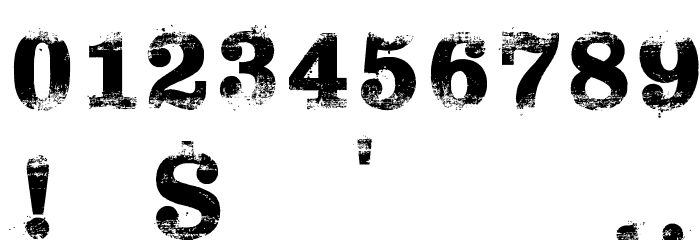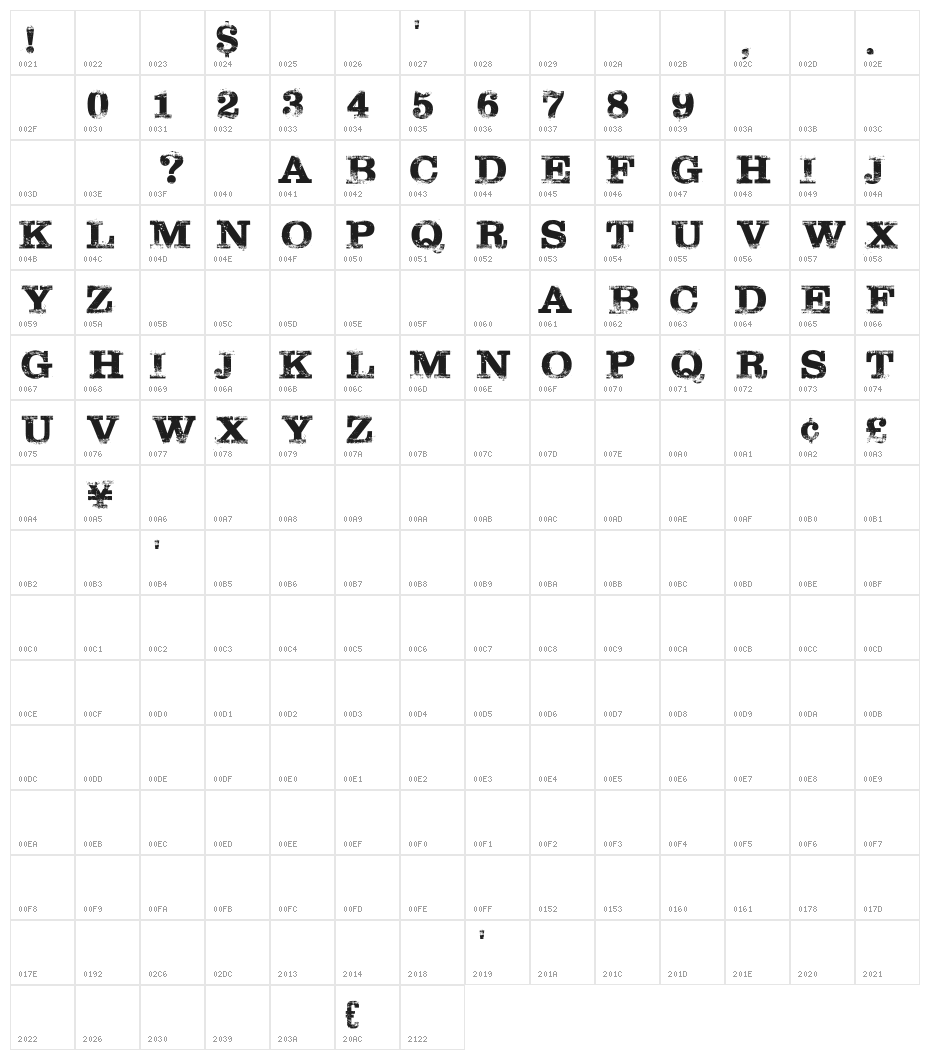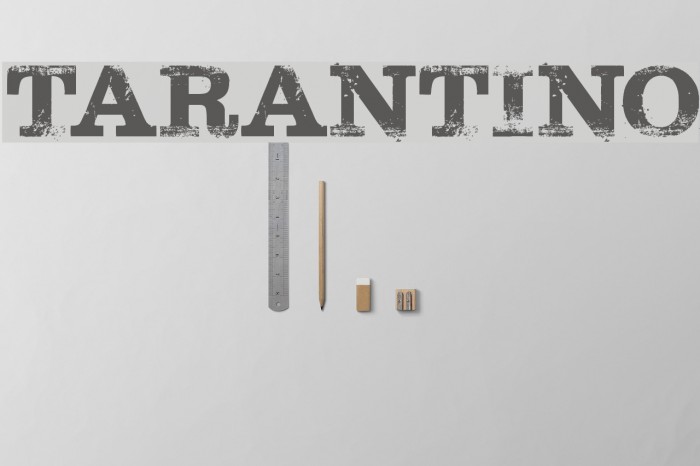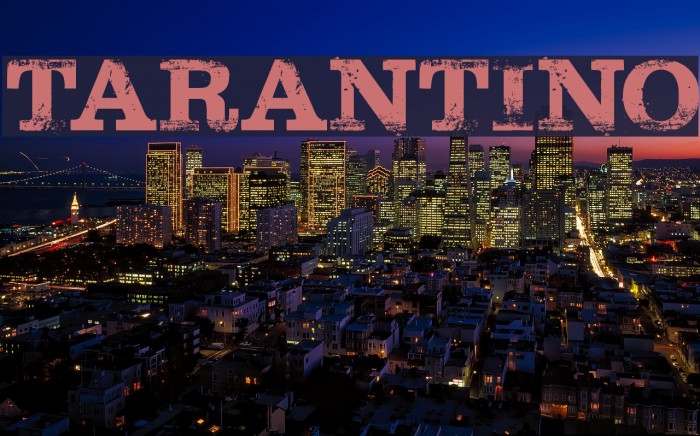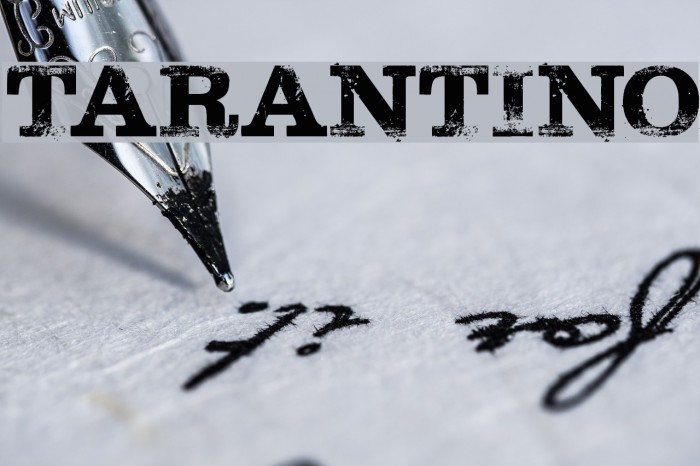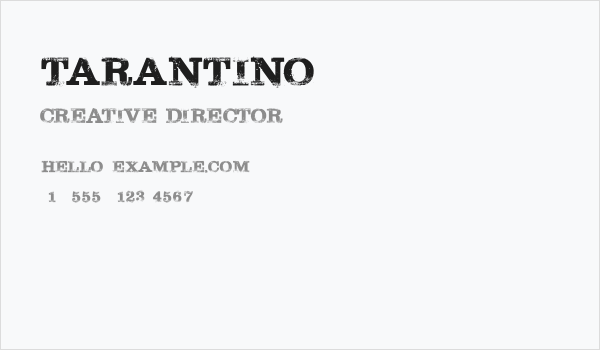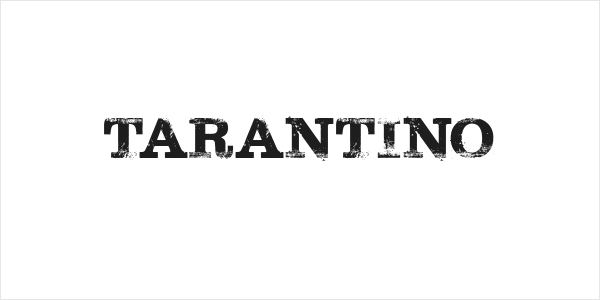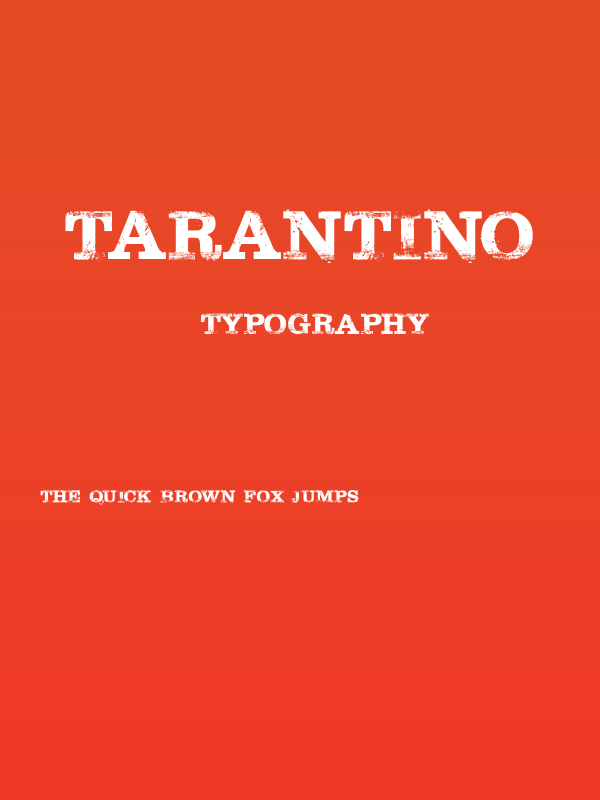
Tarantino Font
Tarantino Description
This font features a bold, distressed style that gives it a rugged and vintage appearance. The characters are uppercase and have a textured, worn-out look, reminiscent of old typewriter or newspaper print. The font's design includes rough edges and uneven surfaces, adding to its rustic charm. It is highly legible despite its decorative elements, making it suitable for impactful headlines or titles. The numbers and special characters maintain the same distressed aesthetic, ensuring consistency across all glyphs. This font is ideal for projects that require a touch of nostalgia or a gritty, authentic feel.
| Proposed Projects | Ideal for movie posters, vintage-themed designs, album covers, and branding that requires a gritty, authentic look. |